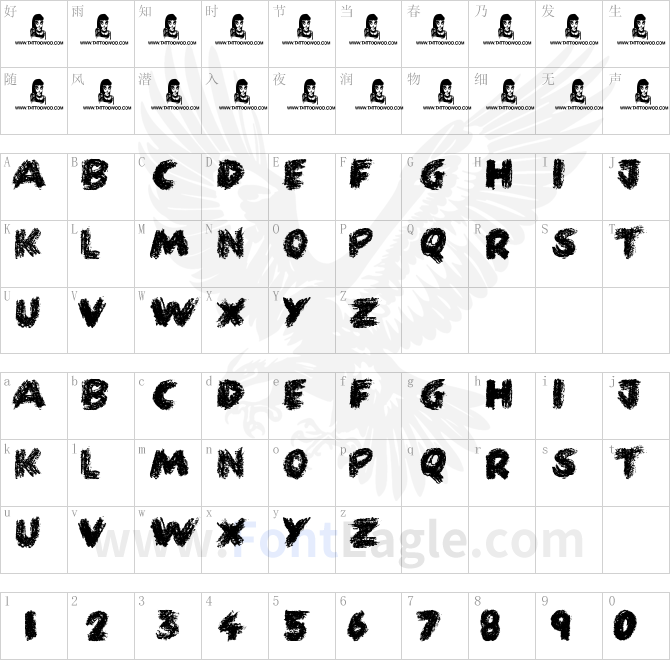
Fun-Crayon is a great font, widely used in graphic design, single-page menu design, poster design and other fields, and is deeply loved by designers.Fun-Crayon download.